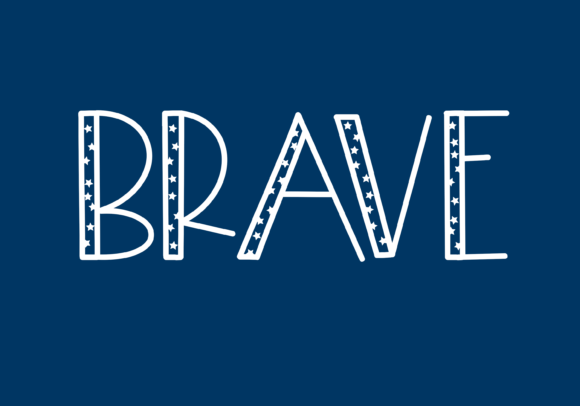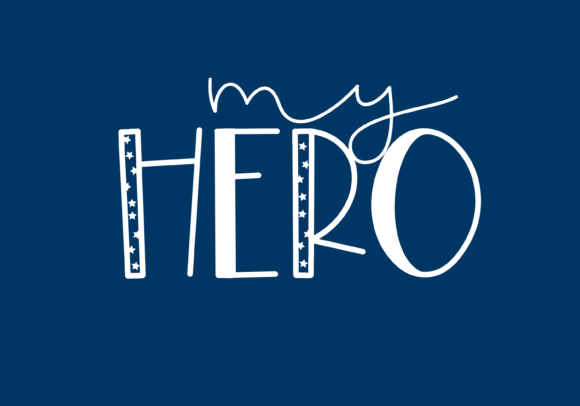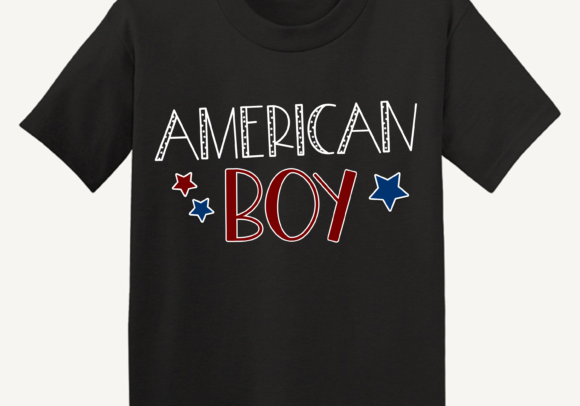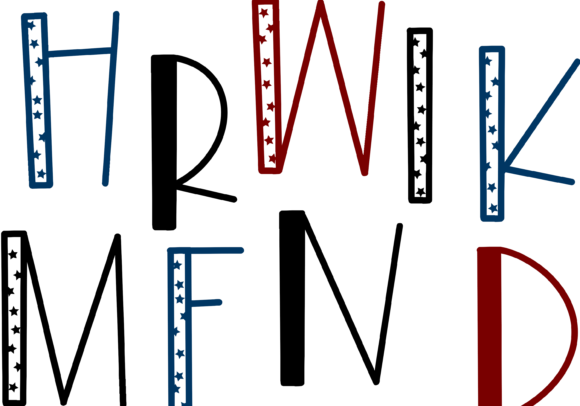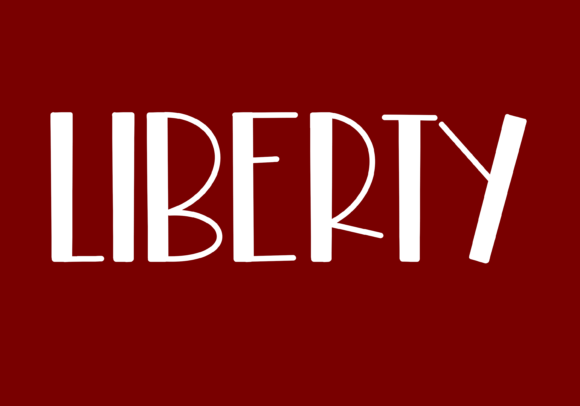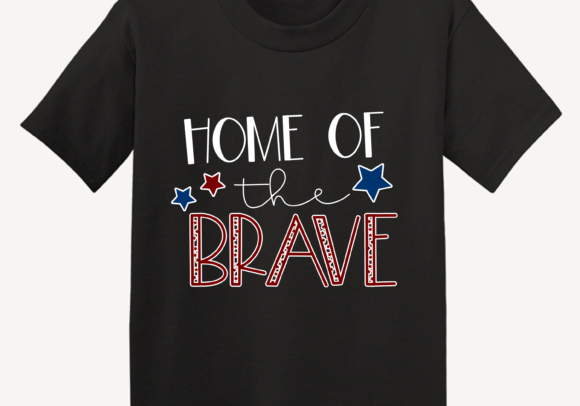
Introducing Freedom Font: The Perfect Blend of Patriotism and Whimsy
Are you tired of using the same old fonts for your design projects? Look no further than Freedom Font, a delightful and patriotic font that’s sure to add a touch of charm to your creations. With its lovely and brave feel, Freedom Font is the perfect choice for designers and crafters who want to evoke a sense of American spirit and nostalgia in their work.
What is Freedom Font?
Freedom Font is a unique and hand-crafted font that’s inspired by the classic American typefaces of the past. Its distinctive lettering style is characterized by bold lines, elegant curves, and a dash of playfulness. Whether you’re working on a DIY project, a branding campaign, or a craft tutorial, Freedom Font is sure to add a touch of personality and whimsy to your design.
Key Features of Freedom Font
- Patriotic feel: Freedom Font is designed to evoke a sense of American pride and nostalgia. Its bold and confident lettering style is perfect for Independence Day celebrations, patriotic crafts, and Americana-themed designs.
- Fun and playful: Despite its patriotic feel, Freedom Font is also a lot of fun to use. Its whimsical lettering style and charming details make it perfect for crafters and designers who want to add a touch of personality to their work.
- Highly versatile: Freedom Font is a highly versatile font that can be used for a wide range of design projects, from DIY tutorials and craft patterns to branding campaigns and advertising materials.
- Easily readable: Despite its bold and playful style, Freedom Font is also highly readable, making it perfect for use in titles, headings, and body text.
How to Use Freedom Font
Freedom Font is incredibly easy to use, even for designers and crafters who are new to working with fonts. Here are a few ideas to get you started:
- DIY projects: Use Freedom Font to add a touch of personality to your DIY projects, such as handmade cards, gift tags, and scrapbook pages.
- Branding campaigns: Freedom Font is perfect for use in branding campaigns, particularly for businesses that want to evoke a sense of American spirit and nostalgia.
- Craft tutorials: Add a touch of whimsy to your craft tutorials with Freedom Font, perfect for use in titles, headings, and instructions.
- Social media graphics: Use Freedom Font to add a touch of personality to your social media graphics, such as Facebook posts, Instagram stories, and Twitter headers.
Tips and Tricks for Using Freedom Font
Here are a few tips and tricks to help you get the most out of Freedom Font:
- Experiment with colors: Freedom Font looks great in a range of colors, from bold and bright to soft and pastel. Experiment with different color combinations to find the one that works best for your design.
- Mix and match: Don’t be afraid to mix and match Freedom Font with other fonts and design elements to create a unique and eye-catching design.
- Pay attention to spacing: As with any font, pay attention to spacing and kerning to ensure that your text looks clean and easy to read.
Freedom Font is a unique and charming font that’s perfect for designers and crafters who want to add a touch of patriotism and whimsy to their work. With its bold and confident lettering style, highly versatile design, and easily readable text, Freedom Font is sure to become a favorite in your design toolkit. So why not give it a try today and see the difference it can make in your designs?
Get Inspired with Freedom Font
Ready to get inspired with Freedom Font? Here are a few ideas to get you started:
- Create a patriotic craft: Use Freedom Font to create a patriotic craft, such as a handmade card or gift tag.
- Design a DIY project: Add a touch of personality to your DIY project with Freedom Font, perfect for use in titles, headings, and instructions.
- Develop a branding campaign: Use Freedom Font to evoke a sense of American spirit and nostalgia in your branding campaign.
Whatever your design project, Freedom Font is sure to add a touch of charm and personality. So why not give it a try today and see the difference it can make?